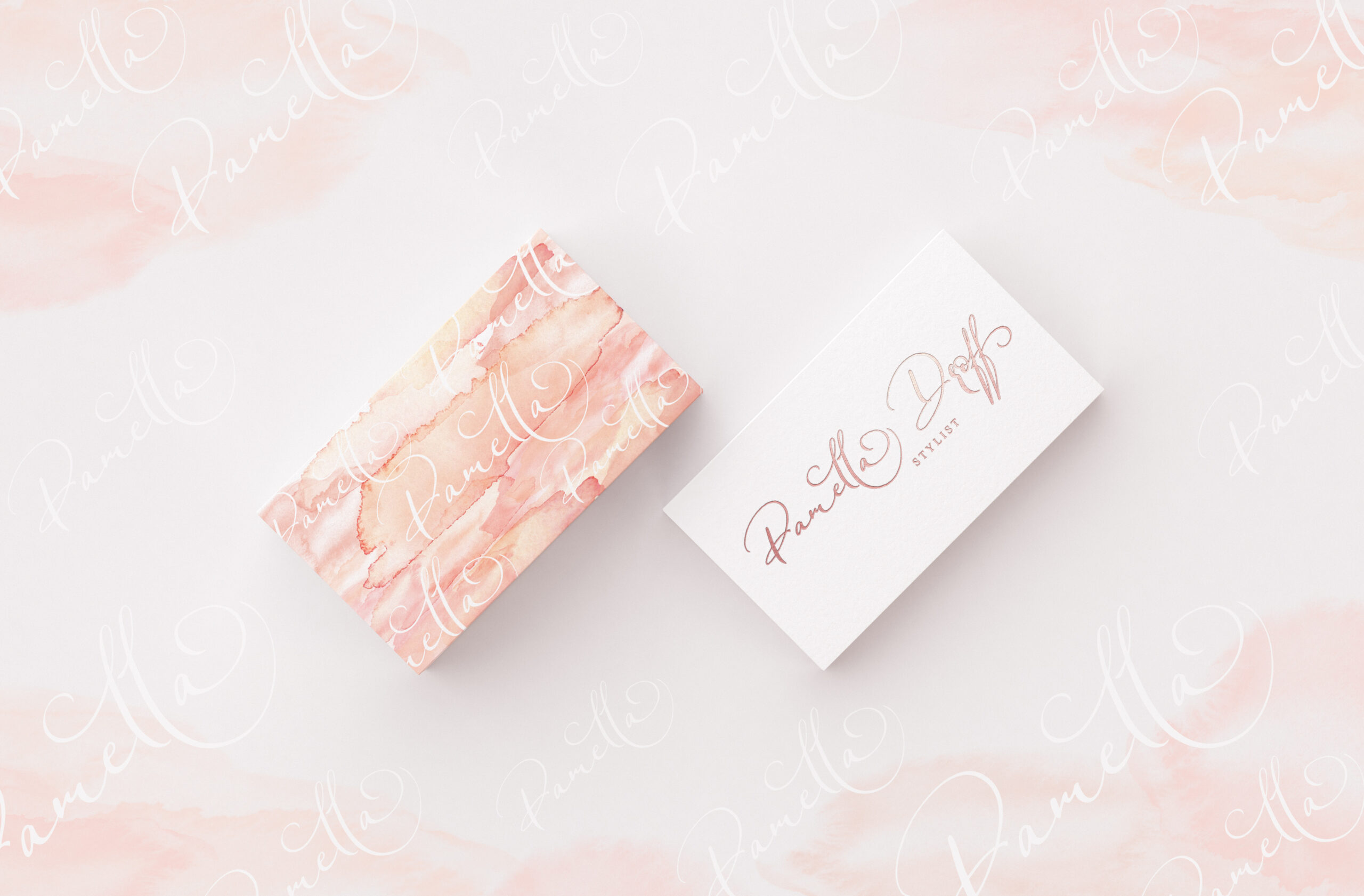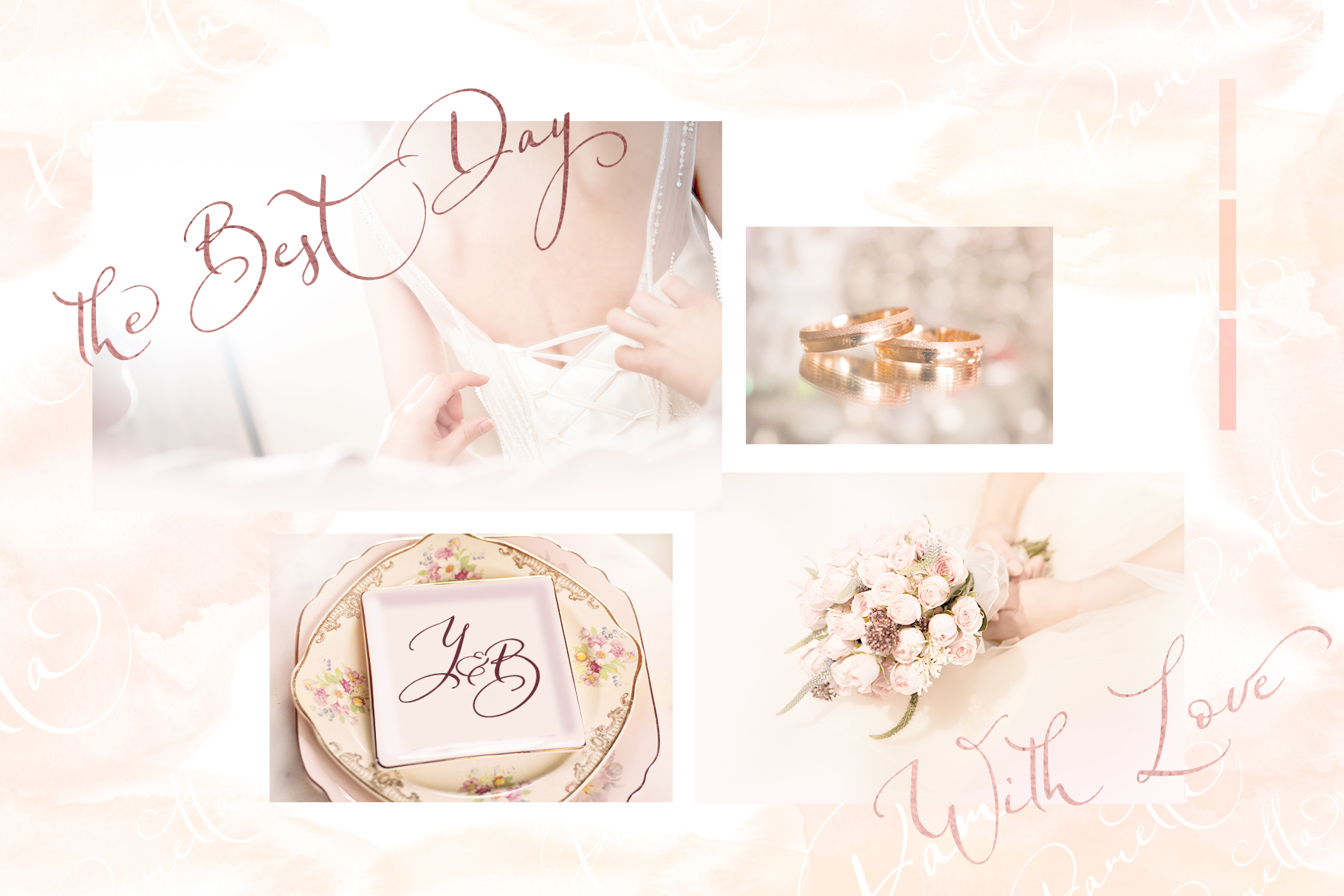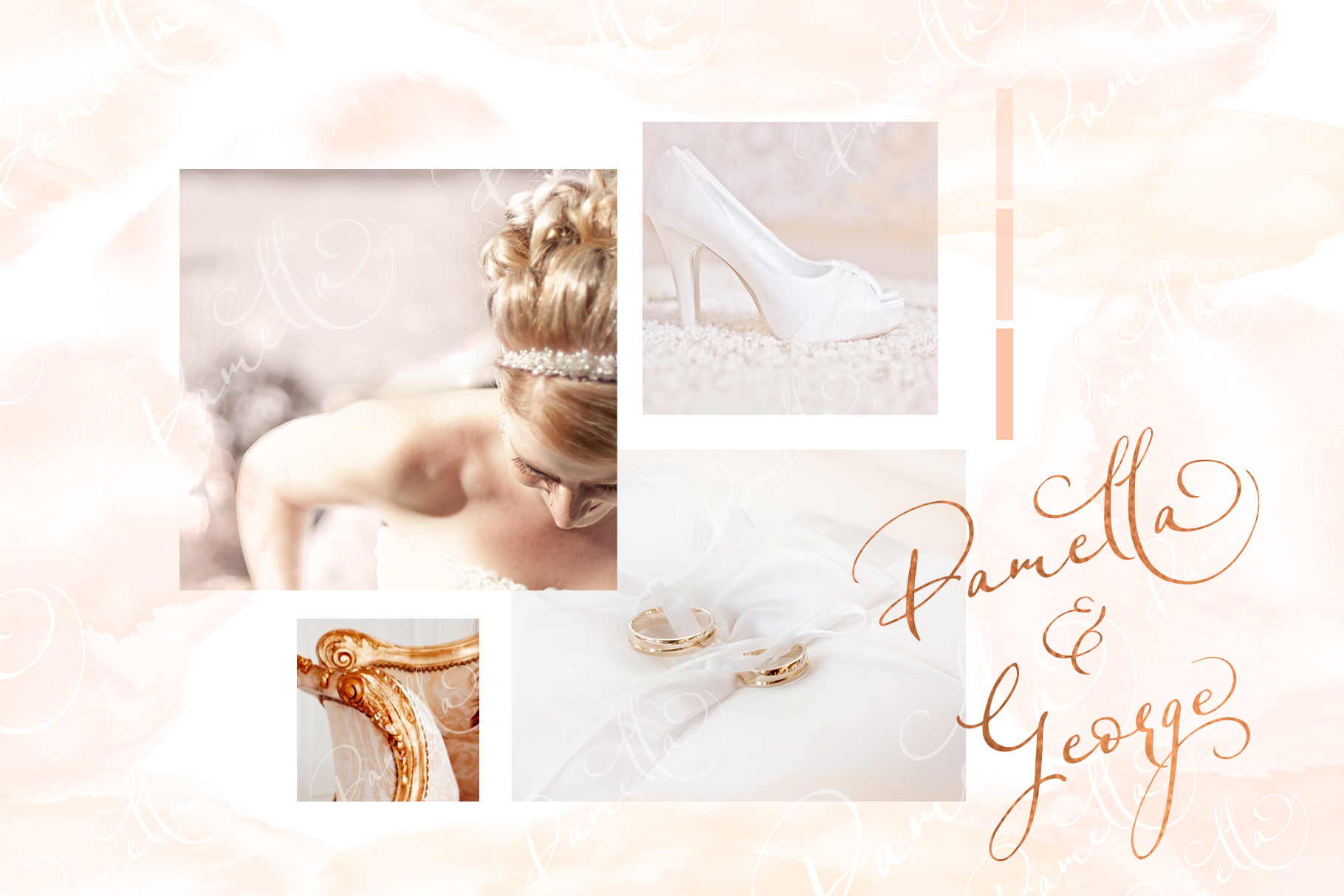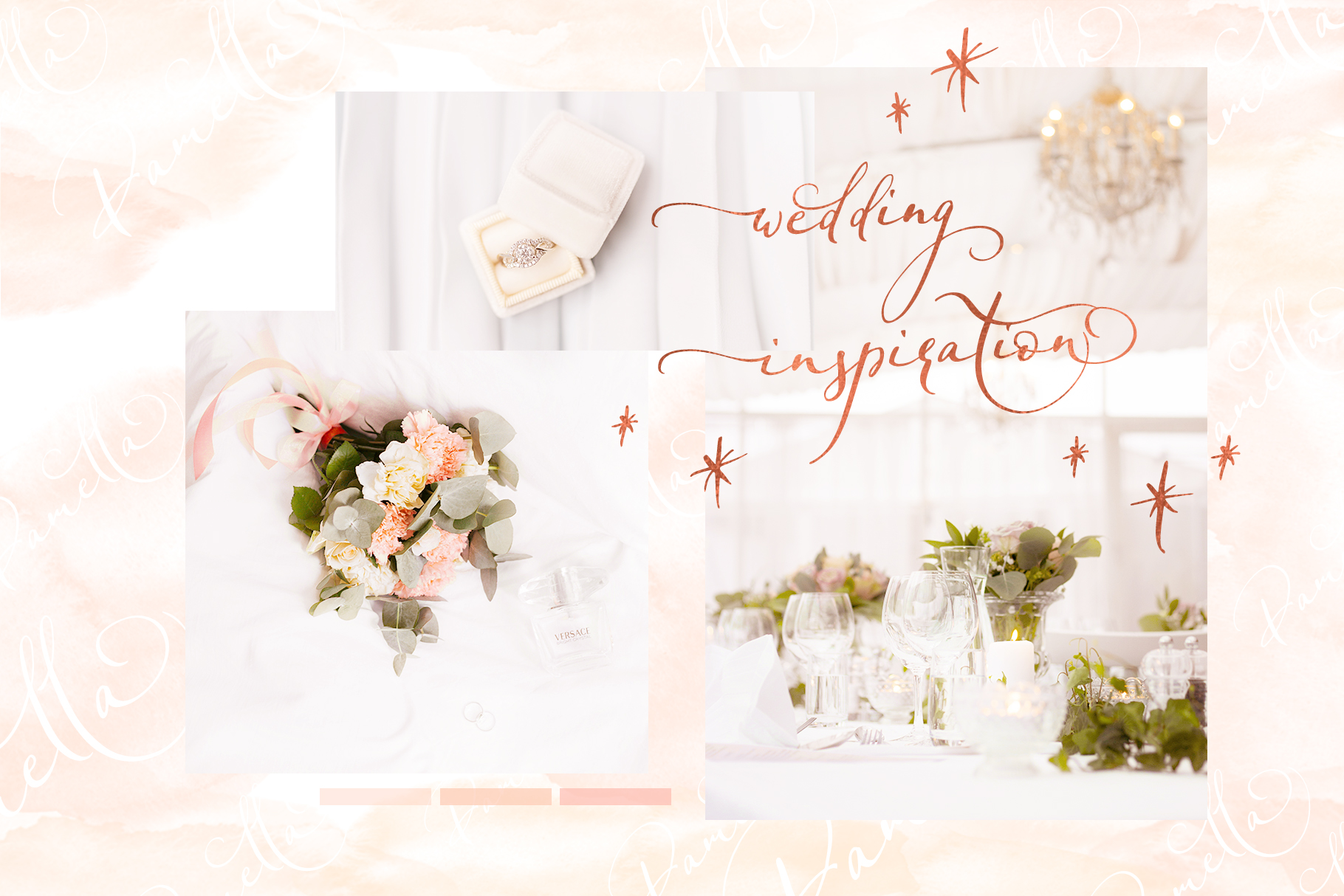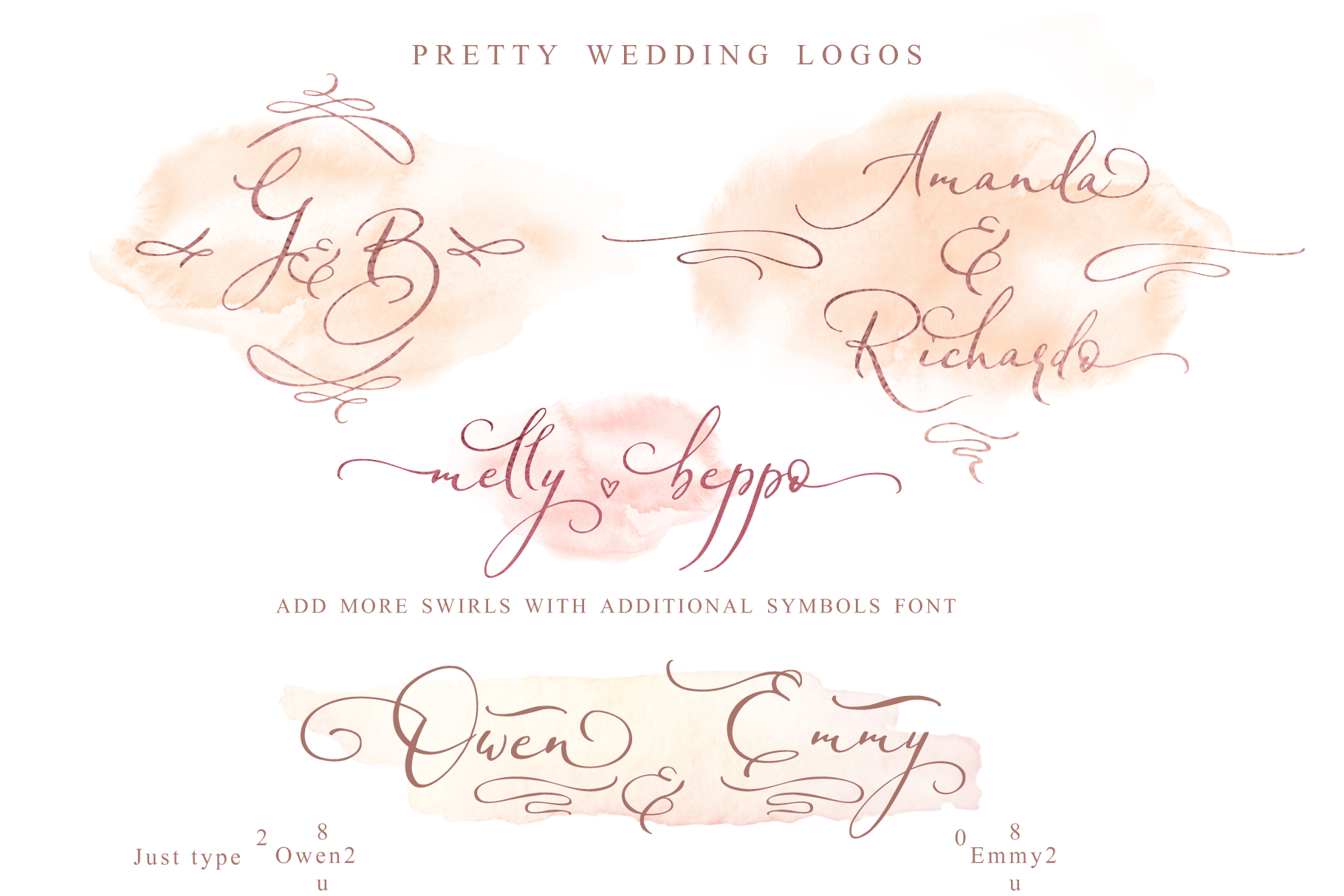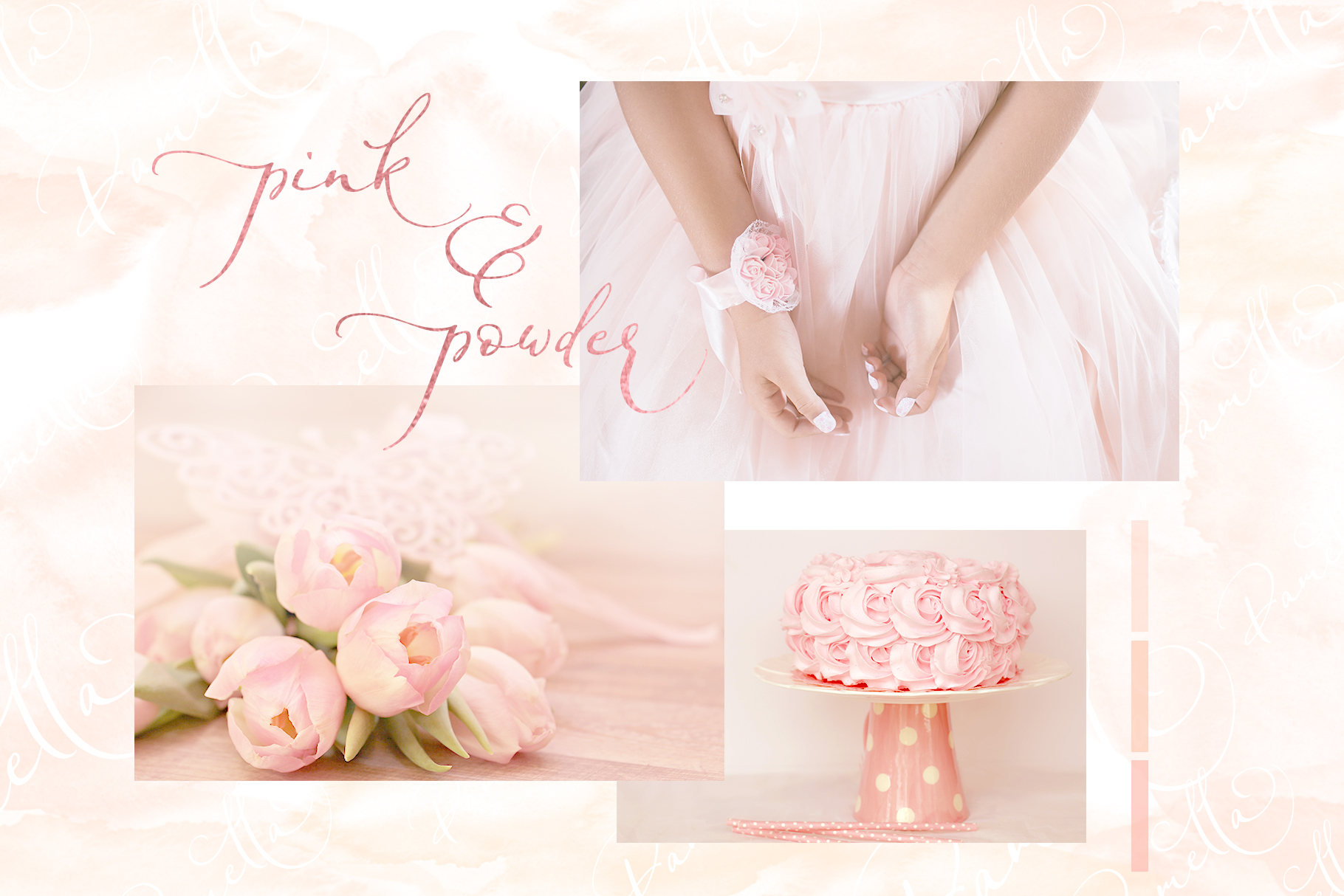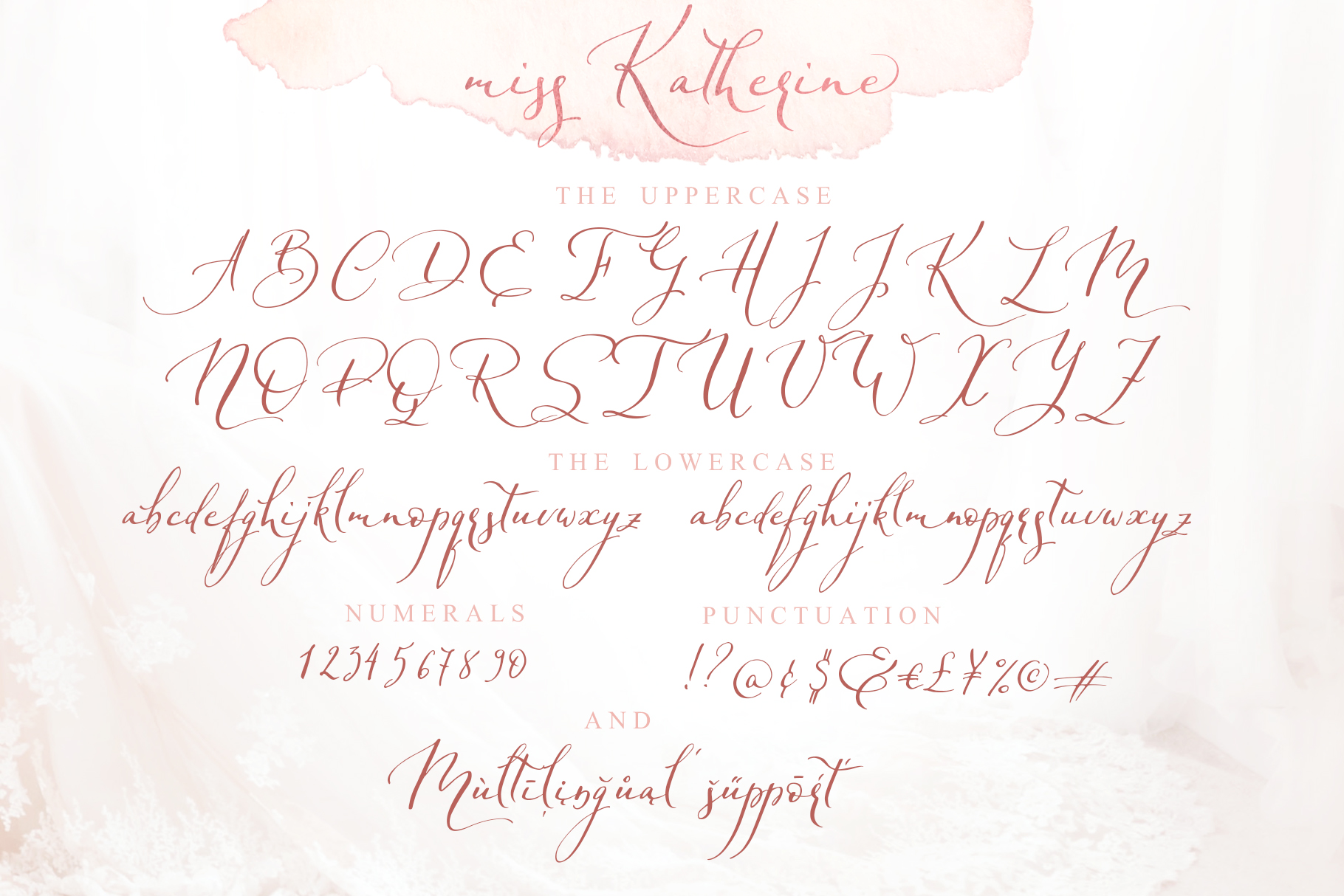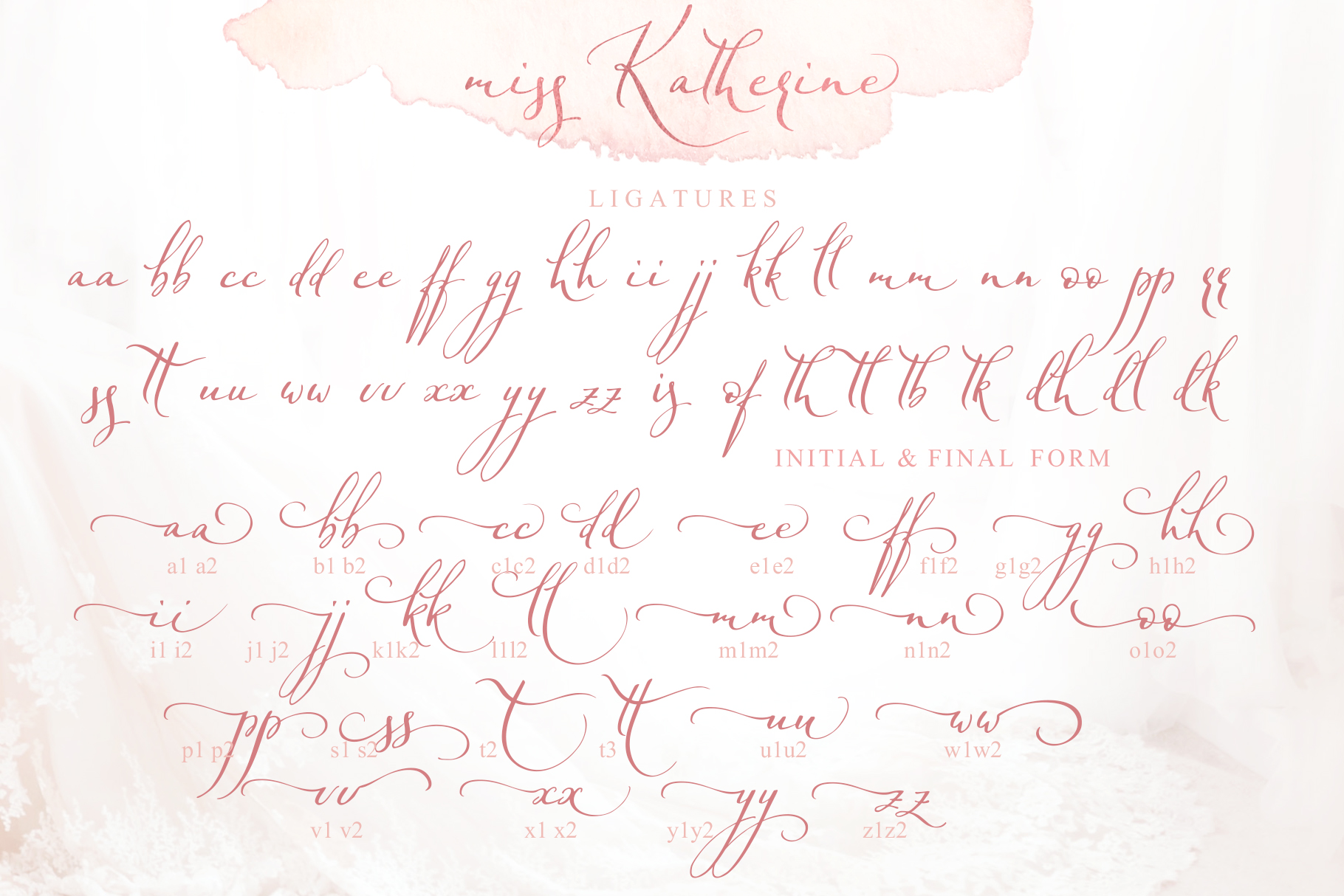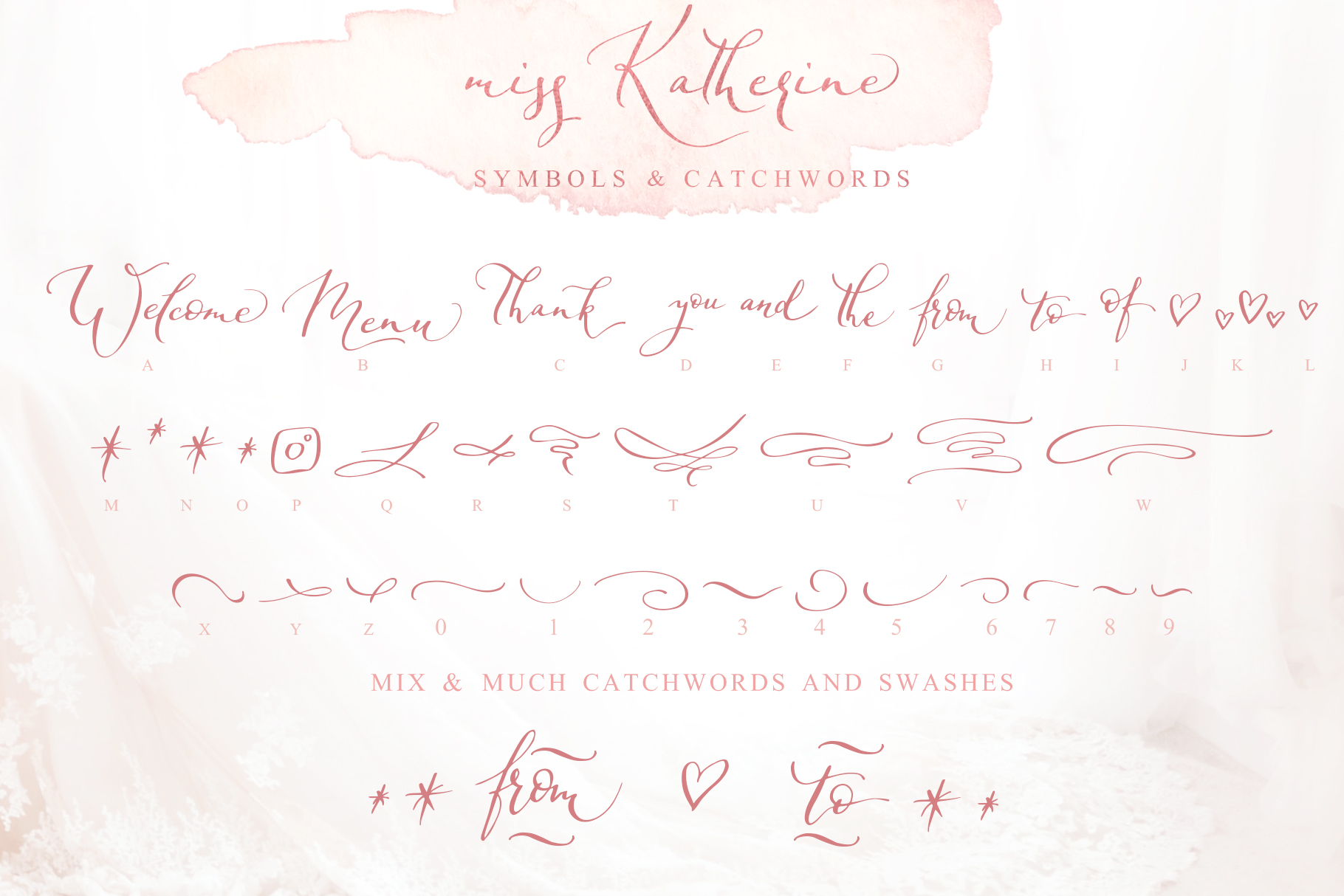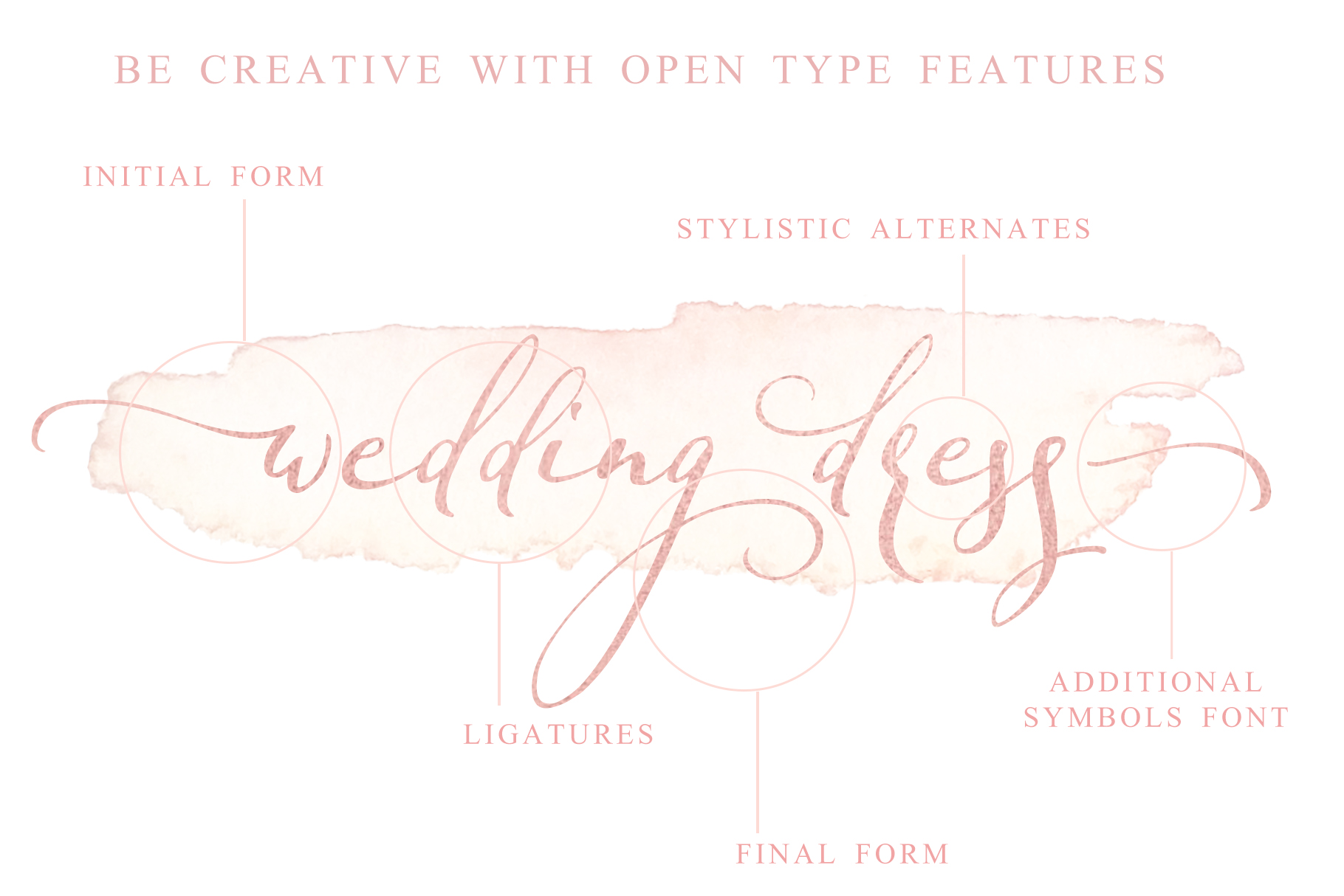
Miss Katherine Font
About Miss Katherine Font
Miss Katherine script is a graceful, feminine, calligraphic handwritten script font. Its charming elegant style makes it perfect for use in your wedding invitations design, monograms, blog headlines –basically, anything you can imagine. Use this elegant and beautiful font for endlessly beautiful possibilities.